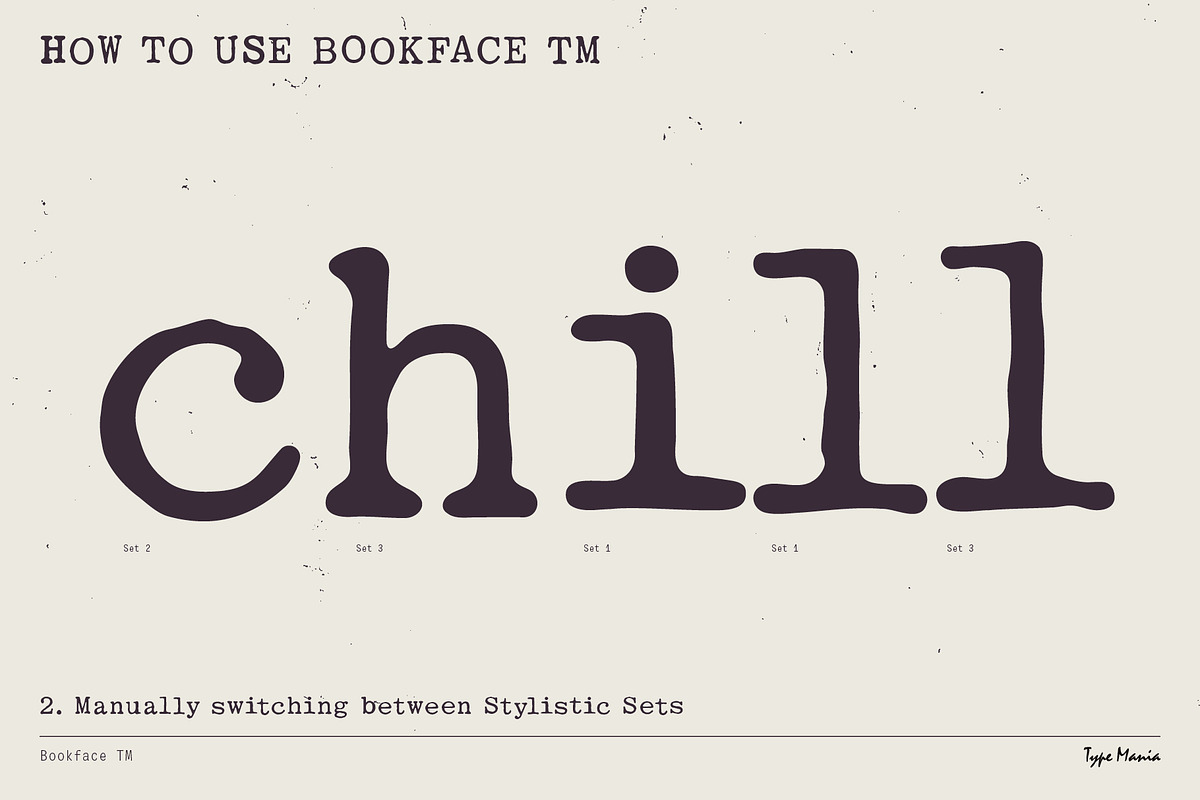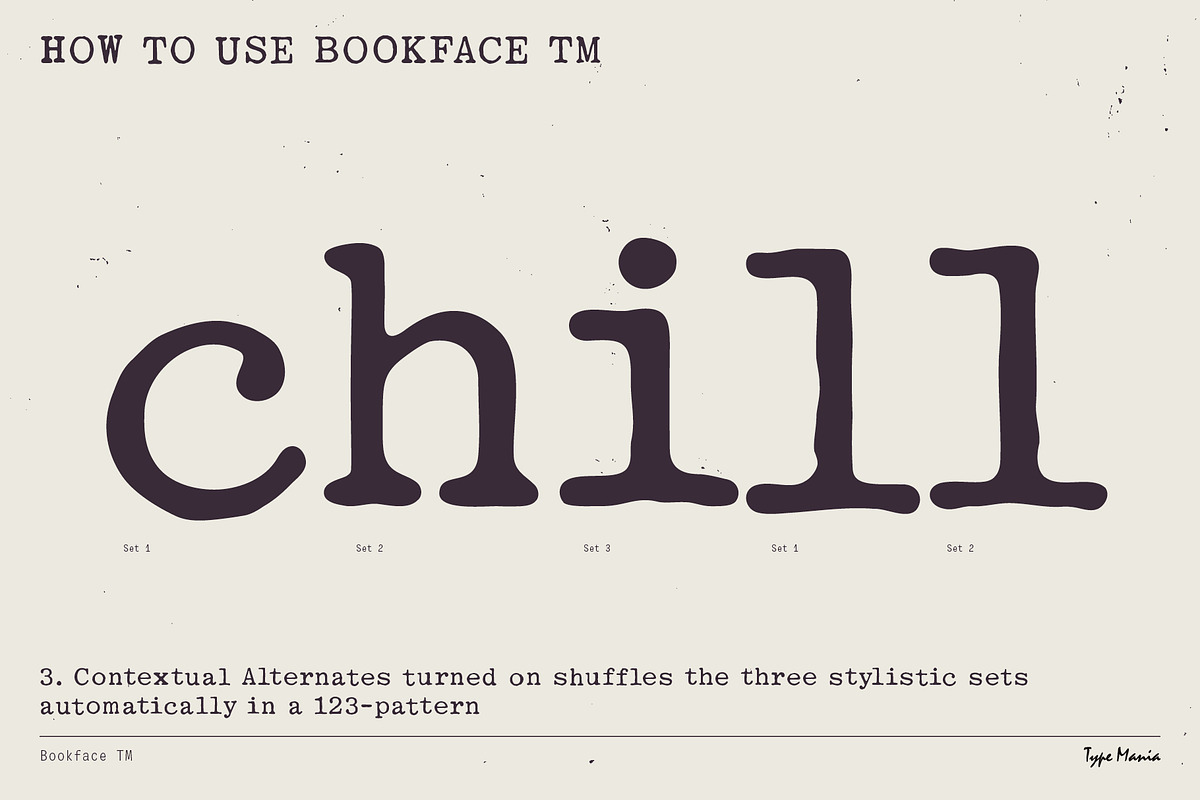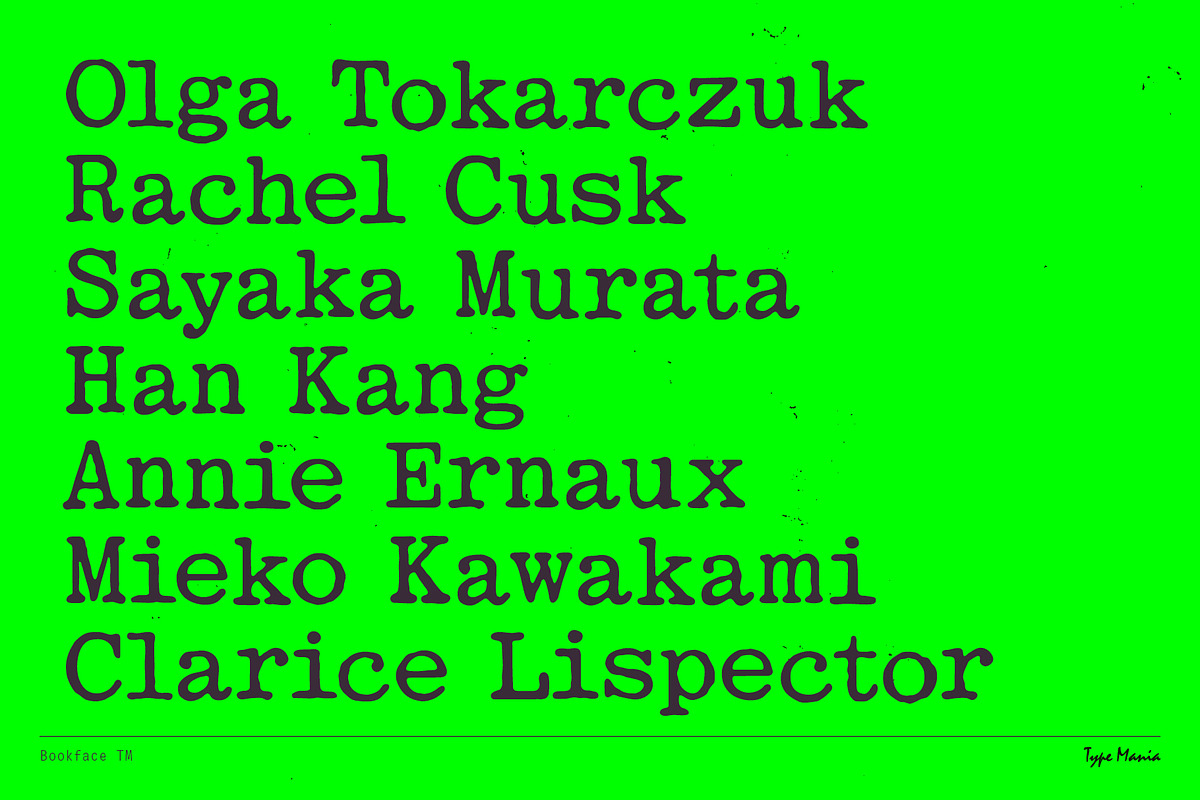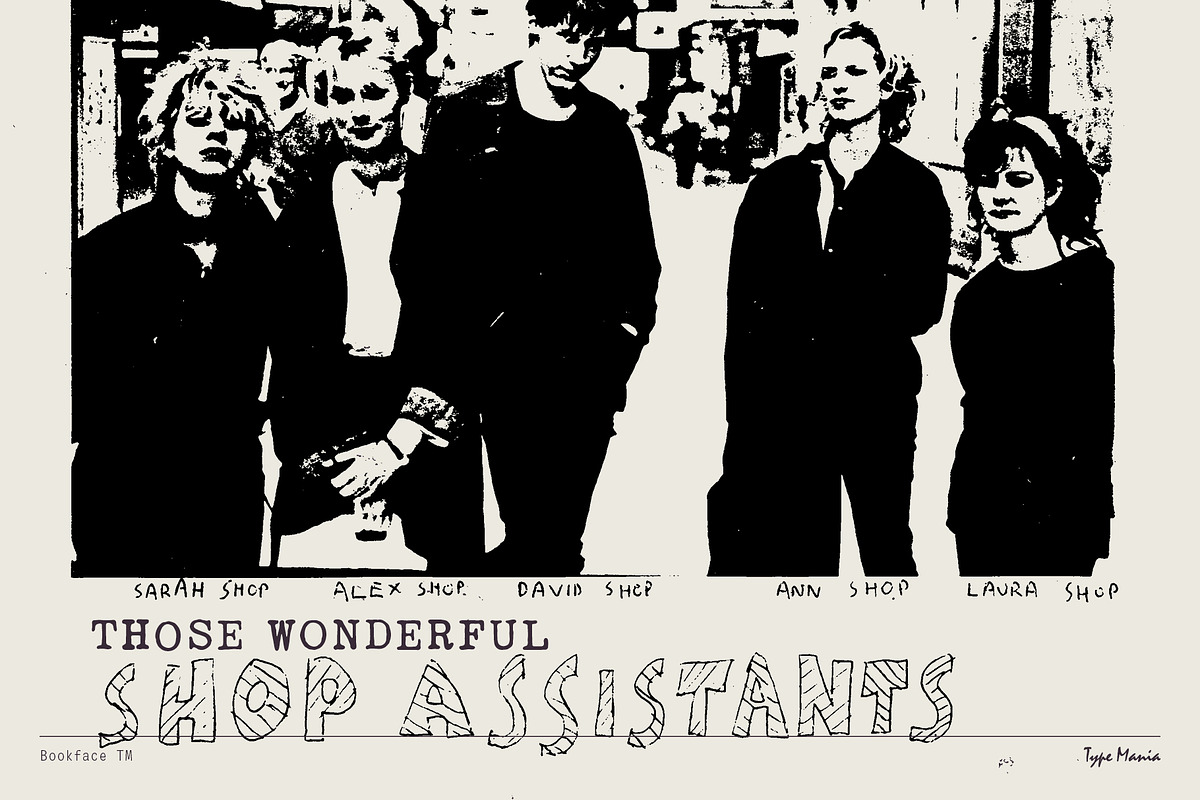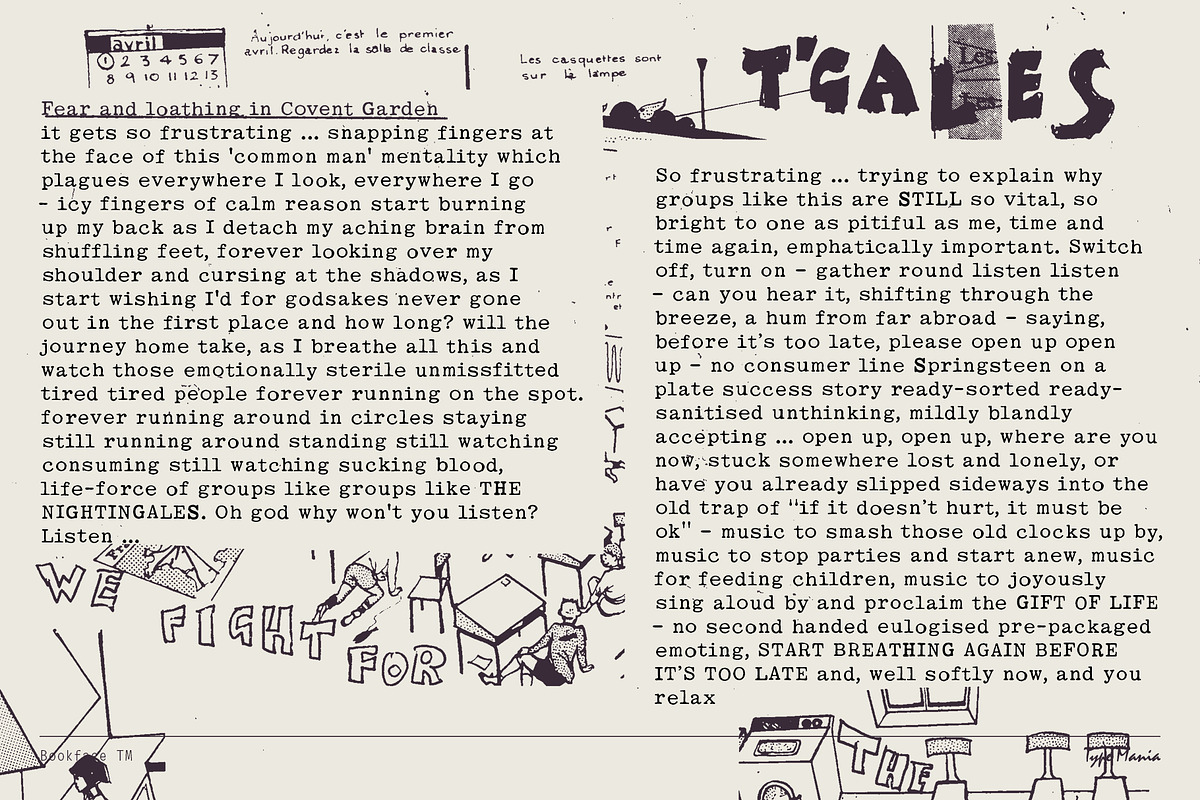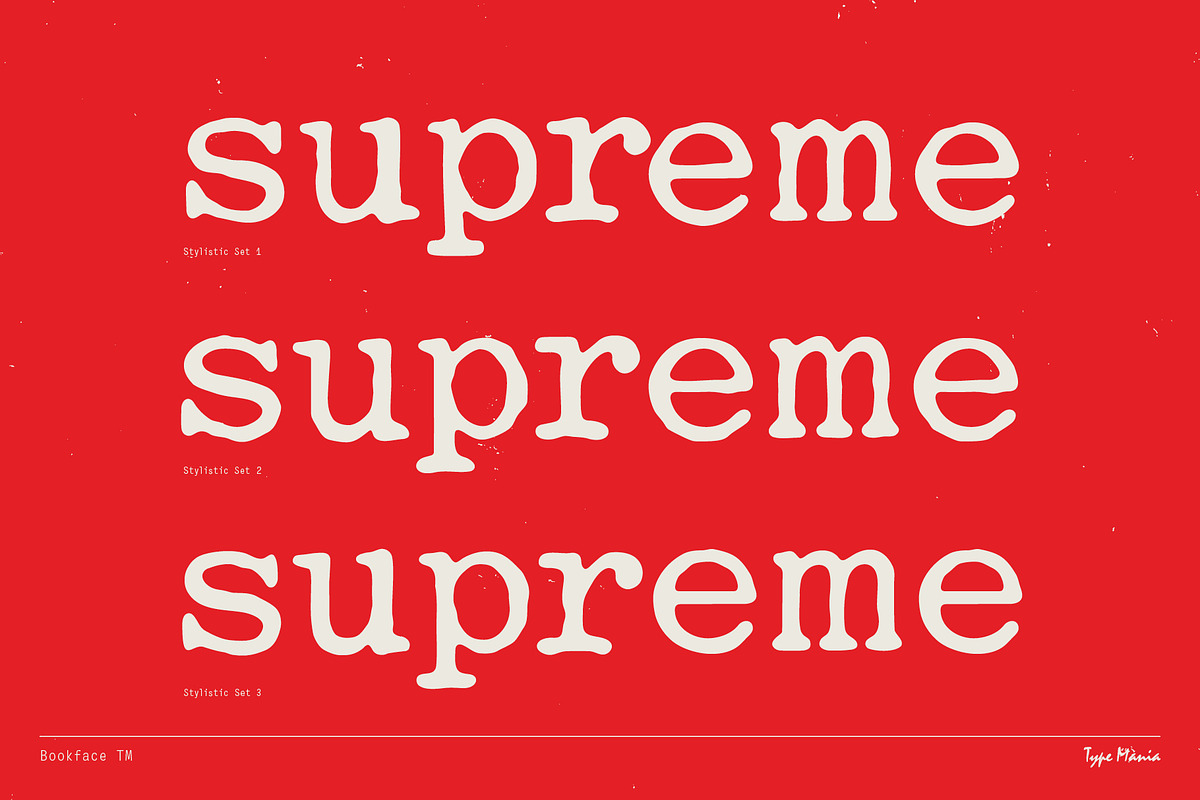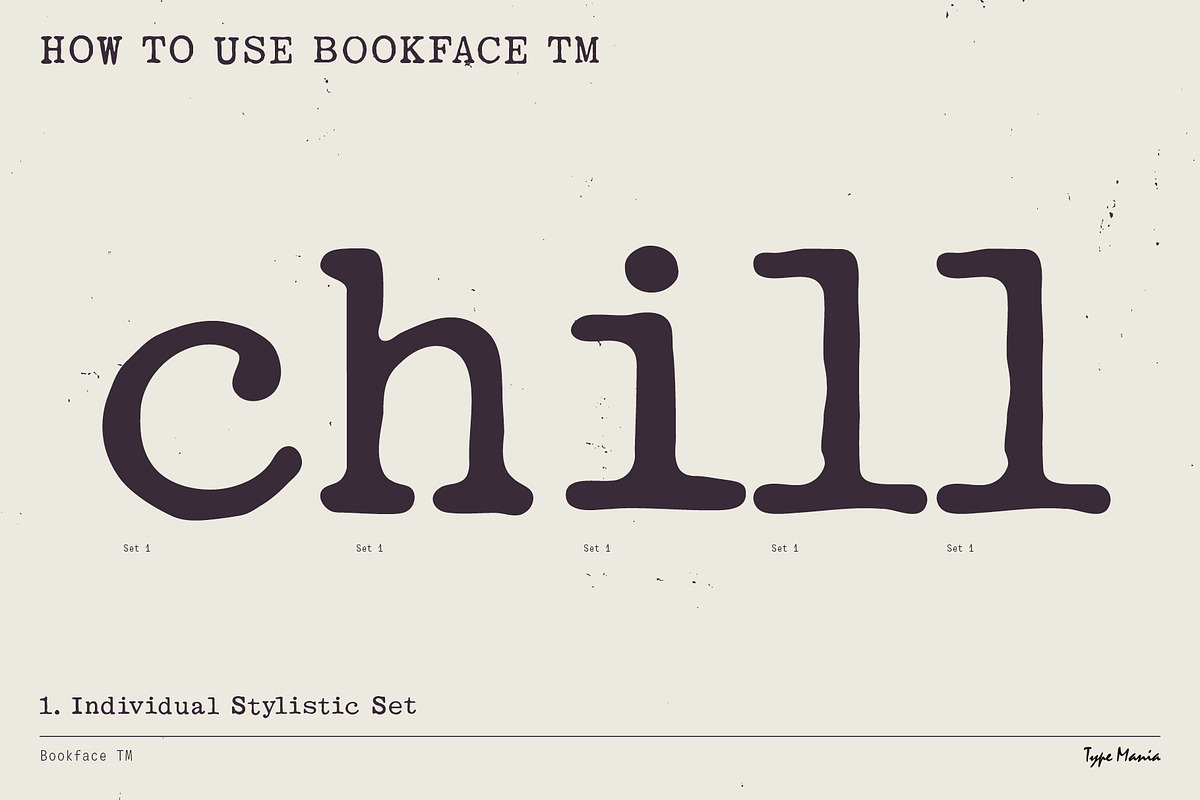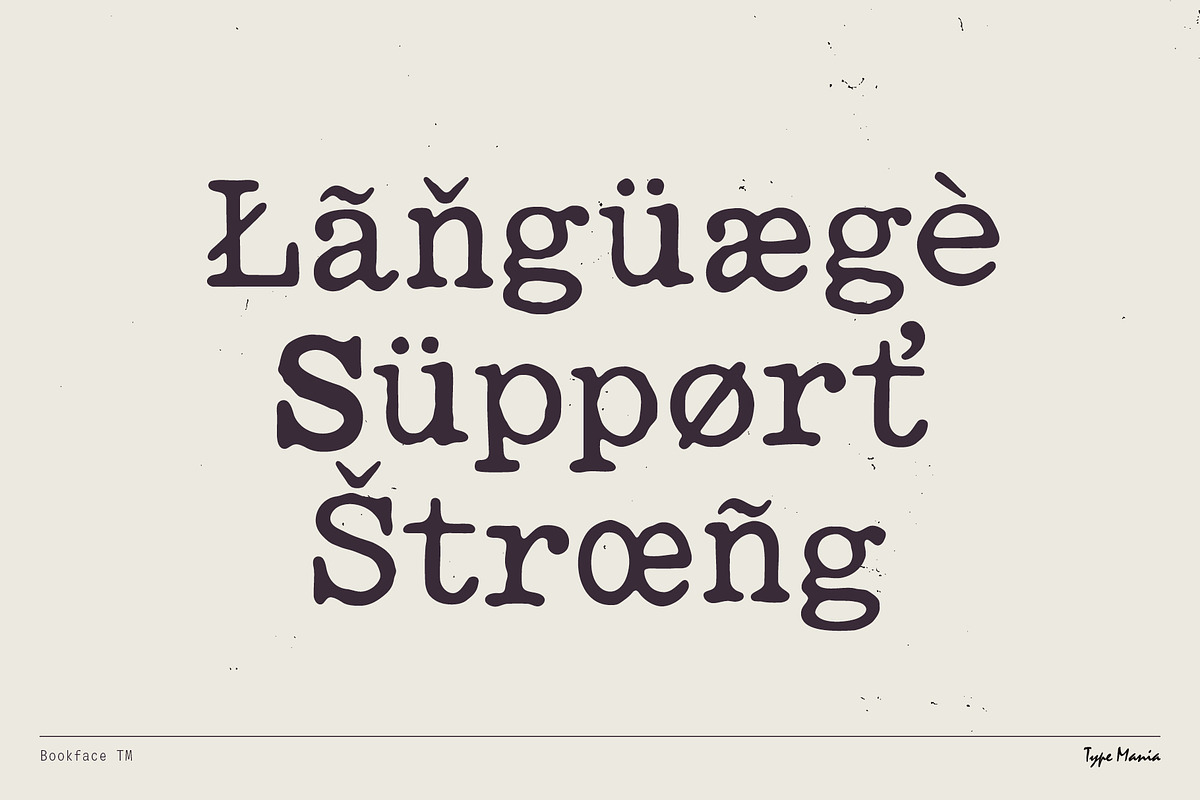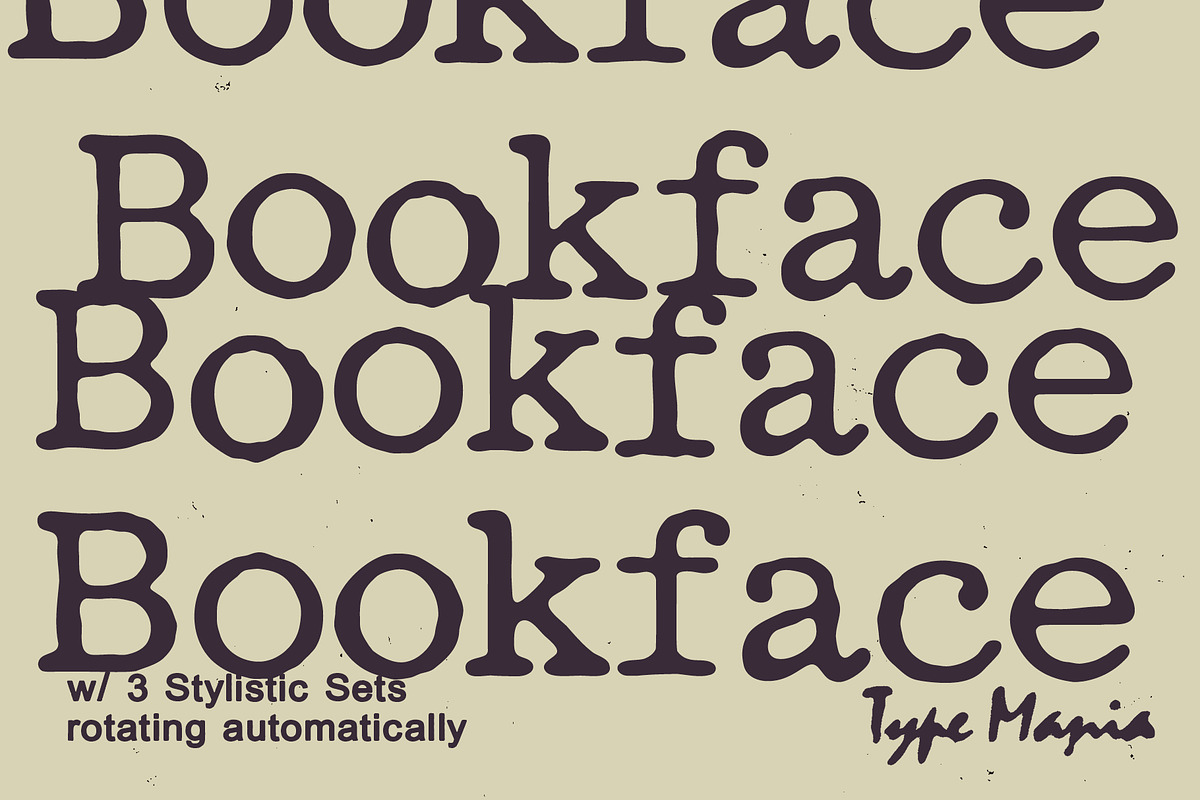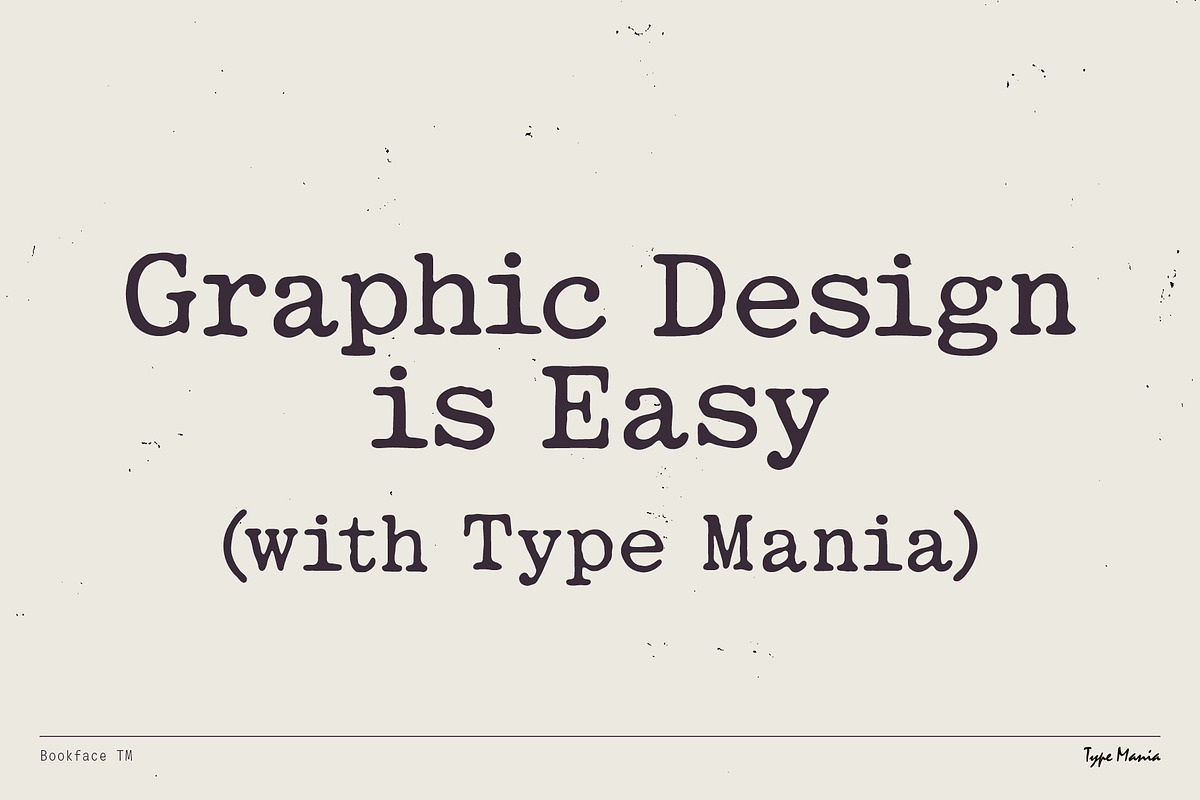
Bookface TM – Dynamic Grunge-y Type
Bookface TM – an egyptienne slab with three stylistic sets in the mix. Switch on contextual alternates and the letters rotate automatically, creating a living texture for paper and pixels 🫡
OpenType features
- 3 stylistic sets
- The font is programmed to automatically shift between the stylistic sets
Languages
- Basic Latin
- Western European
- Euro
- Central European
- Pan African Latin